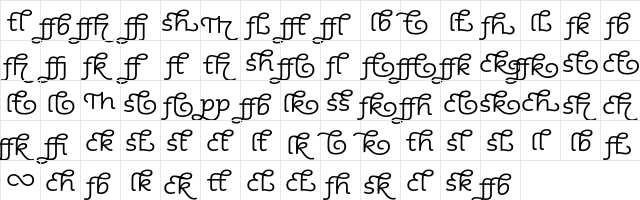
AspectSwashLigatures Regular
| Foundry | Jeremy Tankard, |
Design Context for AspectSwashLigatures Typeface
AspectSwashLigatures flows with the natural rhythm of handwritten lettering, making it ideal for designs that call for warmth and personal expression.